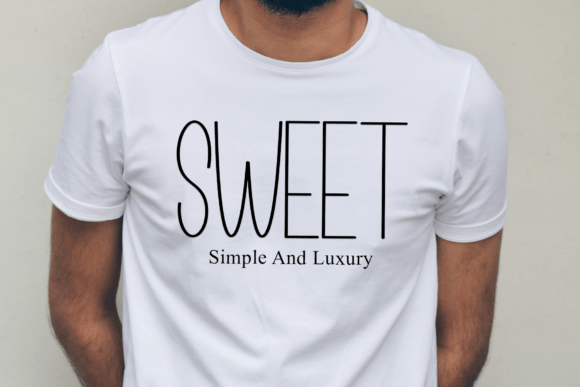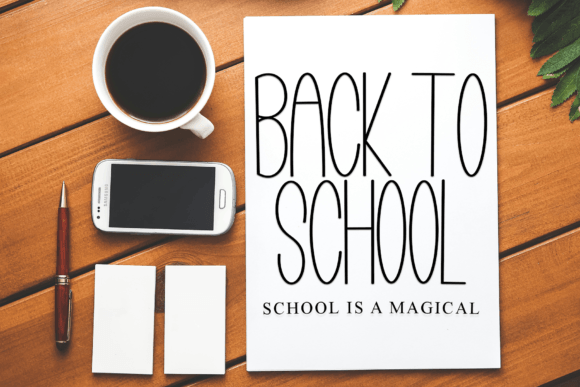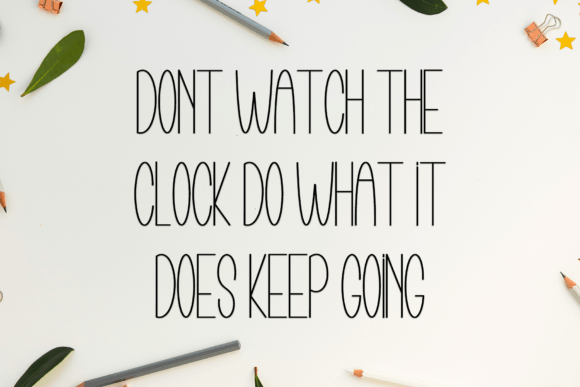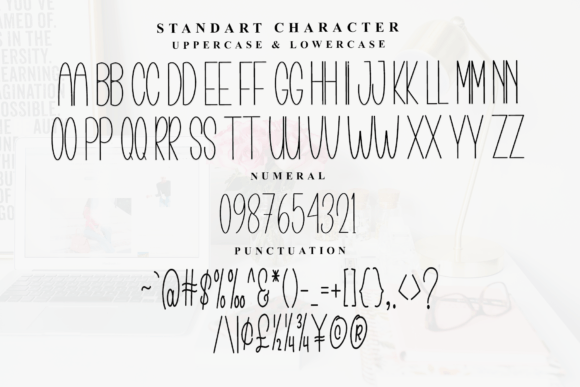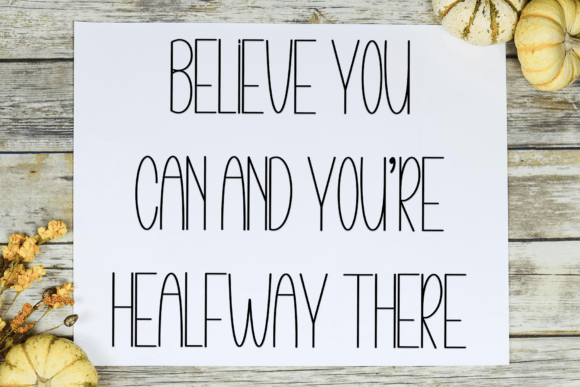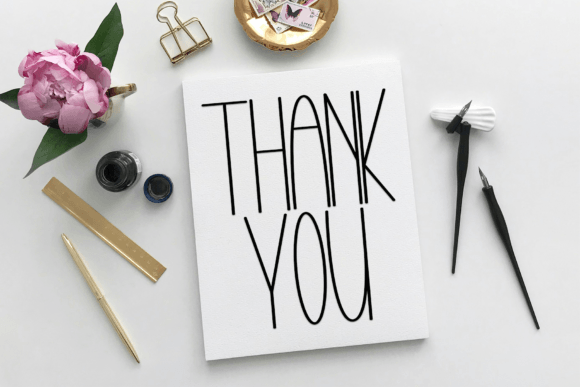
Discover the Magic of Camping Romance Font
Ah, the holiday season is upon us, and as designers, crafters, and creative hobbyists, we’re always on the lookout for that perfect font to capture the spirit of the festivities. I still remember the time I was working on a holiday project, and I just couldn’t seem to find the right font to bring my design to life. The client wanted something cheerful, nostalgic, and full of charm. That’s when I stumbled upon the Camping Romance font, and it instantly became my go-to choice.
A Festive and Happy Typeface
Camping Romance is a decorative font that embodies the joy and magic of the holiday season. With its unique flair and decorative elements, it adds a touch of whimsy to your designs. This font is perfect for creating greeting cards, gift labels, and holiday-themed projects that require a cheerful and nostalgic atmosphere.
What I Love About Camping Romance Font
• ✨ PUA coded for easy access to glyphs and ligatures: No more tedious searching for the perfect character or symbol. With Camping Romance, you can easily access all the amazing glyphs and ligatures, making your design process a breeze.
• ✅ Perfect for holiday-themed projects: Whether you’re designing Christmas cards, Halloween decorations, or Easter gift tags, Camping Romance has got you covered.
• 🎉 Unique and decorative elements: This font is full of charm and character, making your designs stand out from the crowd.
• 💻 Works great on digital and print platforms: Whether you’re designing for screen or print, Camping Romance looks amazing.
While Camping Romance is an amazing font, there are a few things to keep in mind:
• 🤔 May not be suitable for body text: Due to its decorative nature, Camping Romance is best used for headlines, titles, or short paragraphs.
• ⚠️ Limited use of uppercase letters: Some uppercase letters may not be as stylized as the lowercase letters, so be sure to test the font before using it in your project.
The Story Behind Camping Romance
Camping Romance was designed by a team of creative typographers who wanted to capture the magic of the holiday season in a font. Inspired by vintage camping posters and festive holiday decorations, they created a font that’s both nostalgic and modern. With its unique flair and decorative elements, Camping Romance is sure to bring a touch of charm to your designs.
Q: Is Camping Romance suitable for digital and print projects?
A: Yes, Camping Romance is designed to work great on both digital and print platforms, making it a versatile font for a range of applications.